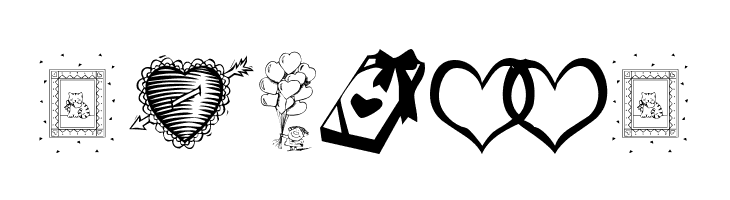
• GamingDiceStandard
• DK Phantom Peach Regular
A playful, spooky font with bold, irregular letterforms and thematic elements.
• Surf
Surf-inspired pictogram font with bold, silhouette icons.
• Viking Runes Shields
A bold, rune-inspired font with characters enclosed in shield shapes.
• Lock
A dingbat font of assorted lock and padlock icons in various styles.
• Senior Citizen
A decorative pictogram font focused on senior citizens and aging themes.
• THE WOODCUTTER
A pictogram font featuring lumberjack and woodcutting motifs.
• Pizza
Playful pizza-themed icon font with bold, decorative glyphs.
• Bakery
A bold, decorative bakery-themed icon set.
• Saint Valentine's Day
A decorative icon set themed around love and Valentine's Day.
• BONESOUP
A bold, decorative font with a distressed, grunge texture, ideal for thematic designs.
• KR Football Fun
A bold, playful font with football-themed decorations on each letter.
• KR Easter Windows
A decorative font with Easter-themed stained glass window illustrations.
• KR Calendar
A bold, decorative font with seasonal-themed embellishments.
• KR A Time For Peace
A decorative design using peace symbols in a flag motif.
• KR Eight Ball
A playful font with characters inside black eight-ball designs, ideal for thematic projects.
• KR Kitchen Dings
A decorative dingbat font with kitchen-themed icons.
• KR Maverick
A bold, decorative font with cowboy hat motifs integrated into each letter.
• KR Construction
A playful font with letters embedded in construction vehicles.
• KR Father's Day Dings
A playful, thematic font featuring Father's Day phrases and symbols.
• KR NA Dings
A decorative font with culturally inspired symbols and illustrations.